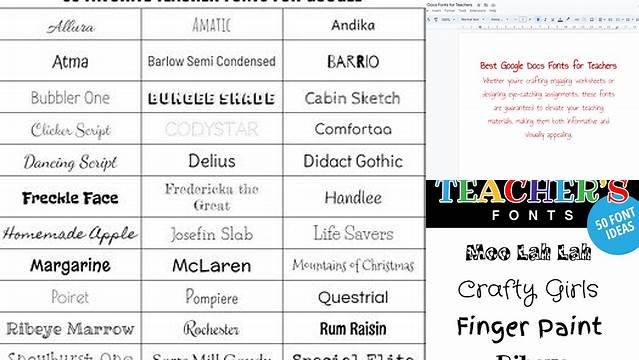
Fun Teacher Fonts: Boost Engagement On Google Docs
Hey teachers! Let's face it, teaching can be tough, but creating engaging materials doesn't have to be. One simple way to add a little pizzazz to your worksheets, presentations, and other documents is by using fun and unique fonts. Google Docs offers a wide array of fonts, but sometimes the default options just don't cut it. You need something that screams fun, creativity, and teacher-approved awesomeness! In this article, we're diving deep into the world of fun teacher fonts on Google Docs, showing you how to find them, use them, and make your teaching materials pop. So, grab your favorite mug of coffee (or tea!), and let's get started!
Why Use Fun Fonts in Your Teaching Materials?
Why bother with fancy fonts, you might ask? Well, fun fonts can make a huge difference in how your students perceive the material. Think about it: a page filled with Times New Roman can feel a bit… dry. But a worksheet with a playful, handwritten-style font? That instantly feels more approachable and engaging. Let's explore some of the compelling reasons to incorporate fun fonts into your teaching toolkit:
1. Increase Student Engagement
In today’s digital age, capturing and maintaining student attention is more challenging than ever. Eye-catching fonts can be a simple yet effective way to break through the noise and grab your students' interest. When text is visually appealing, students are more likely to engage with the content. Fun fonts can transform a mundane task into an exciting activity, making learning feel less like a chore and more like an adventure. Imagine a math worksheet with whimsical number fonts or a history lesson presented with a vintage-style typeface – these small changes can make a significant impact on student engagement.
Moreover, interesting fonts can cater to different learning styles. Visual learners, in particular, benefit from visually stimulating materials. By using a variety of fonts, you can cater to this learning preference, making the material more accessible and enjoyable for all students. This inclusive approach to learning ensures that every student has the opportunity to connect with the content in a way that resonates with them.
2. Improve Readability and Comprehension
While it might seem counterintuitive, the right fun font can actually improve readability. Fonts designed with clarity in mind, even if they have a playful twist, can make text easier to read and understand. Consider fonts with clear letterforms and ample spacing – these can help students, especially younger ones or those with reading challenges, to decode words more easily. When text is legible and visually appealing, students can focus on the content rather than struggling with the presentation. This improved readability directly translates to better comprehension and retention of information.
However, it's crucial to strike a balance. Overly decorative or complex fonts can have the opposite effect, making text difficult to decipher. The goal is to choose fonts that are both fun and functional, enhancing the overall learning experience without sacrificing clarity. Test out different fonts and seek feedback from your students to ensure that the chosen fonts are effective in promoting readability and comprehension.
3. Add Personality and Creativity to Your Materials
Using fun fonts allows you to infuse your unique personality and creative flair into your teaching materials. Your teaching style is distinctive, and your materials should reflect that. A carefully selected font can convey the tone and mood of the lesson, making it more relatable and engaging for your students. Are you teaching a science lesson? Consider a futuristic or tech-inspired font. A language arts class might benefit from an elegant or handwritten-style font. The possibilities are endless!
Furthermore, fun fonts can transform mundane assignments into memorable experiences. A worksheet with a playful font can feel less like a task and more like a fun activity. This subtle shift in perception can have a significant impact on student attitudes towards learning. By adding a touch of creativity, you can make your materials stand out and leave a lasting impression on your students.
4. Reinforce the Subject Matter
The right font can actually reinforce the subject you're teaching. For example, if you're teaching a unit on the Wild West, a Western-style font can add authenticity and immersion to your materials. Similarly, a science fiction unit might call for a futuristic, tech-inspired font. By carefully selecting fonts that align with the subject matter, you can create a cohesive and engaging learning experience. This alignment helps to contextualize the information, making it more relevant and memorable for students.
Moreover, subject-specific fonts can serve as visual cues, helping students to associate particular styles with different disciplines. This association can enhance recall and make it easier for students to connect new information with existing knowledge. For instance, a classic, serif font might be used for literature-related materials, while a bold, sans-serif font could be reserved for math or science topics. These visual cues provide a subtle but effective way to organize and reinforce learning.
Finding Fun Fonts in Google Docs
Now that we've established why fun fonts are a game-changer, let's talk about how to find them in Google Docs. Google Docs has a decent selection of fonts built-in, but the real magic happens when you explore the Google Fonts library. Here’s a step-by-step guide to finding and adding new fonts:
- Open Google Docs: Start by opening a new or existing document in Google Docs.
- Access the Font Menu: Click on the font dropdown menu in the toolbar. It usually displays the current font, like Arial or Times New Roman.
- Select “Add Fonts”: At the bottom of the font dropdown menu, you’ll see an option labeled “Add fonts.” Click on this.
- Explore Google Fonts: This will open the Google Fonts library, a treasure trove of free fonts. You can browse fonts by category (serif, sans serif, display, handwriting, monospace), script, and popularity. You can also use the search bar to find specific fonts.
- Preview Fonts: Click on a font to see a preview of how it looks in different sizes and styles. This is a great way to get a feel for whether the font will work for your needs.
- Add Fonts to Your List: If you find a font you like, click the font and a pop-up will appear on the right side of your screen. You can select the styles and weights you’d like to use (e.g., Regular, Bold, Italic). Click “OK” to add the font to your font list.
- Use Your New Fonts: The new fonts will now appear in your font dropdown menu and are ready to use in your document!
Tips for Navigating Google Fonts
The Google Fonts library is vast, which can be a bit overwhelming. Here are some tips to help you navigate it effectively:
- Use Filters: The category and script filters are your best friends. If you're looking for a handwritten font, filter by “Handwriting.” If you need a font that supports a specific language, use the script filter.
- Try the Search Bar: If you have a specific style in mind (e.g., “retro,” “modern,” “playful”), try searching for it in the search bar. You might be surprised at what you find!
- Sort by Popularity: The “Sort” dropdown allows you to sort fonts by popularity, trending, date added, or name. Sorting by popularity can give you a sense of which fonts are widely used and well-regarded.
- Experiment with Pairings: Google Fonts provides suggestions for font pairings. These can be helpful if you’re trying to create a cohesive look with multiple fonts.
- Test Before You Commit: Before you start using a font extensively, test it out in a sample document. See how it looks at different sizes, in bold and italic, and with different text. This will help you ensure that it meets your needs.
Top Fun Fonts for Teachers on Google Docs
Alright, guys, let’s get to the fun part! I've curated a list of some top-notch fonts that are perfect for teachers. These fonts are not only visually appealing but also highly readable, making them ideal for a variety of teaching materials. Here are some of my favorites, broken down by category:
Playful & Whimsical Fonts
These fonts are perfect for adding a touch of fun and personality to your materials. They’re great for younger students or for subjects where a lighthearted tone is appropriate.
- ** школьные годы чудесные :** This font has a fun, cartoonish vibe that is perfect for elementary school resources.
- Patrick Hand: A casual, handwritten-style font that feels friendly and approachable.
- Covered By Your Grace: Another handwritten font with a slightly more elegant feel, perfect for adding a personal touch.
- Kalam: A simple, yet playful, handwritten font that’s easy to read and great for a variety of uses.
Clean & Modern Fonts
These fonts offer a clean, contemporary look that’s great for older students or for subjects where you want to convey a sense of professionalism and clarity.
- Montserrat: A versatile sans-serif font that’s clean, modern, and highly readable.
- Open Sans: Another popular sans-serif font that’s known for its clarity and legibility.
- Lato: A sleek and modern sans-serif font with a friendly and approachable feel.
- Raleway: An elegant sans-serif font that’s perfect for headings and titles.
Unique & Thematic Fonts
These fonts are great for adding a specific mood or theme to your materials. They’re perfect for units on history, science fiction, or any other topic where you want to create a sense of immersion.
- Bangers: A bold, comic-book-style font that’s perfect for creating eye-catching titles and headings.
- Creepster: A spooky, Halloween-themed font that’s great for adding a touch of fright to your materials.
- Luckiest Guy: A fun, retro font that’s perfect for adding a vintage vibe to your documents.
- Permanent Marker: A handwritten font that looks like it was written with a permanent marker, adding a casual and authentic feel.
Tips for Using Fun Fonts Effectively
Okay, you’ve got your fonts, you’re ready to go. But before you start slapping Bangers on every worksheet, let’s talk about how to use fun fonts effectively. The goal is to enhance your materials, not make them a visual mess. Here are some tips to keep in mind:
- Use Sparingly: Fun fonts are best used for headings, titles, and accents. Overusing them can make your document look cluttered and difficult to read. Stick to a maximum of two or three fonts per document.
- Prioritize Readability: While fun fonts can be great, readability should always be your top priority. Make sure the font you choose is easy to read, especially for younger students or those with reading challenges. Avoid overly decorative or complex fonts for large blocks of text.
- Consider Your Audience: Think about the age and reading level of your students. A font that’s perfect for high schoolers might not be appropriate for elementary schoolers. Choose fonts that are appropriate for your audience and the subject matter.
- Mix and Match Wisely: Combining different fonts can create a visually appealing look, but it’s important to do it wisely. Pair a fun font with a more neutral font for body text. Use contrasting fonts to create visual interest, but make sure they complement each other.
- Test and Get Feedback: Before you distribute your materials, test them out on a few students or colleagues. Get their feedback on the fonts you’ve chosen. Are they easy to read? Do they convey the right tone? This feedback can help you refine your font choices and create more effective materials.
Level Up Your Teaching Materials Today
So, there you have it, folks! A comprehensive guide to using fun teacher fonts on Google Docs. By incorporating these tips and fonts into your teaching materials, you can boost student engagement, improve readability, and add a touch of personality to your work. Remember, the key is to use fonts thoughtfully and strategically, always prioritizing clarity and readability.
Now go forth and create some amazing teaching materials that your students will love! And don't forget to have fun with it – after all, teaching should be a joyful and creative endeavor. Happy font-ing!